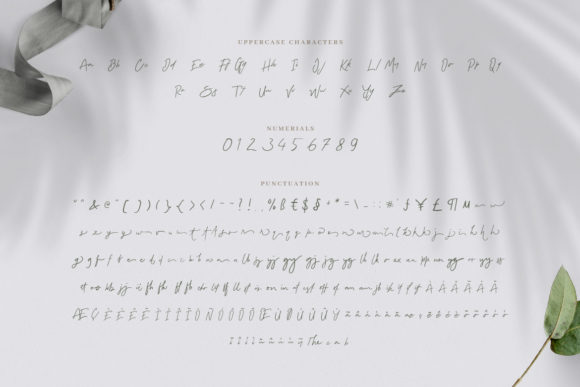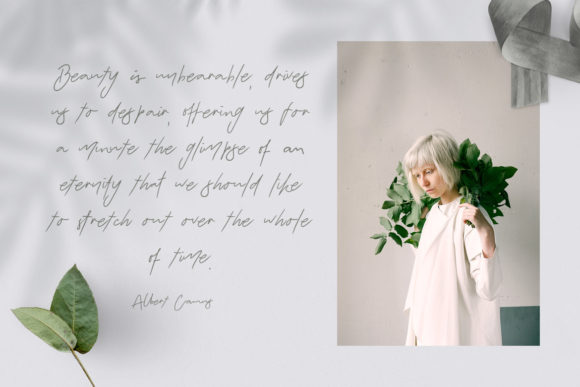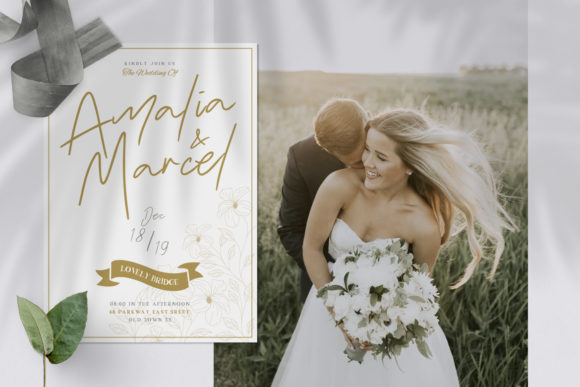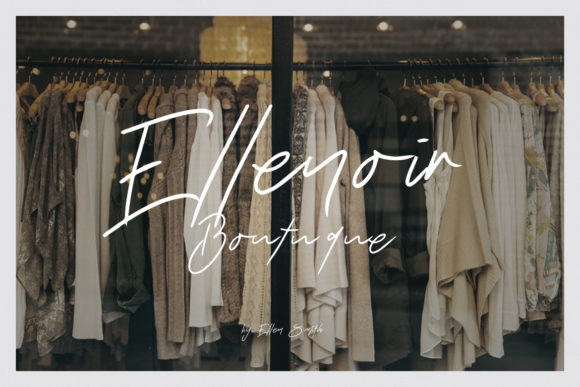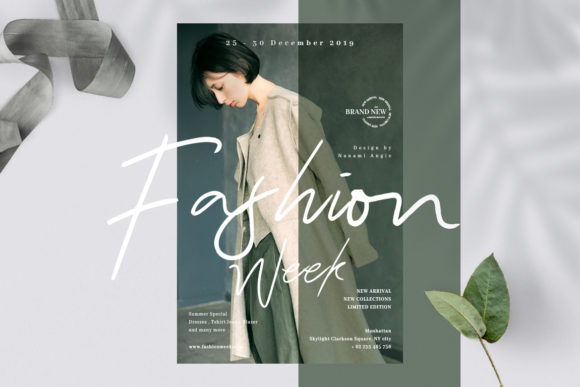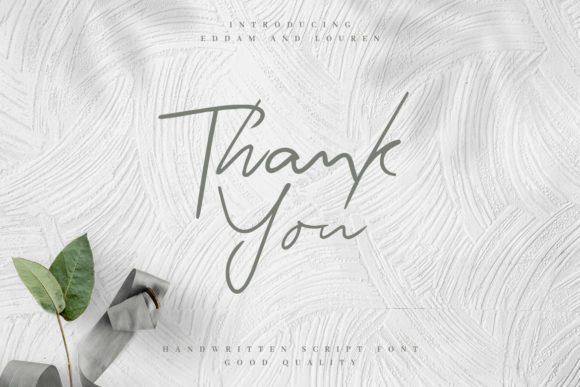
Eddam and Louren Font: Elevate Your DIY Projects with Elegance
Are you a designer, crafter, or DIY enthusiast looking for a font that can add a touch of sophistication to your projects? Look no further than Eddam and Louren, a delightfully charming script font with an elegant feel. In this article, we’ll dive into the world of Eddam and Louren, exploring its features, benefits, and uses, and show you how this must-have font can take your creative endeavors to the next level.
The Story Behind Eddam and Louren
Eddam and Louren is a script font designed to evoke a sense of luxury, elegance, and refinement. Its creators aimed to craft a font that would be perfect for a variety of applications, from crafting and DIY projects to branding, packaging, and digital design. With its beautiful, flowing lines and delicate strokes, Eddam and Louren is sure to captivate anyone who lays eyes on it.
What Makes Eddam and Louren So Special?
So, what sets Eddam and Louren apart from other fonts? Here are just a few features that make it a standout:
- Elegant feel: Eddam and Louren has a sophisticated, high-end feel that’s perfect for projects that require a touch of luxury.
- Charming script: The font’s script style is delightfully charming, with flowing lines and delicate strokes that add a touch of whimsy to any project.
- Versatile: Eddam and Louren is versatile enough to be used in a wide range of applications, from crafting and DIY projects to digital design and branding.
- Easy to read: Despite its elegant feel, Eddam and Louren is surprisingly easy to read, making it perfect for body text and other applications where legibility is key.
Uses for Eddam and Louren
Eddam and Louren is a versatile font that can be used in a wide range of applications, including:
- Crafting and DIY projects: Add a touch of elegance to your crafting and DIY projects, such as papercrafting, scrapbooking, and card making.
- Digital design: Use Eddam and Louren in digital design projects, such as branding, packaging, and social media graphics.
- Stationery and invitations: Create beautiful stationery, invitations, and greeting cards with Eddam and Louren.
- Sign making: Use Eddam and Louren to create stunning signs, banners, and displays.
Tips for Using Eddam and Louren
Here are a few tips for getting the most out of Eddam and Louren:
- Pair it with a sans-serif font: Pair Eddam and Louren with a sans-serif font for a beautiful, contrasting look.
- Experiment with colors: Eddam and Louren looks stunning in a variety of colors, from metallics to pastels.
- Use it sparingly: Use Eddam and Louren sparingly to add a touch of elegance to your projects, rather than overwhelming them with too much script.
Eddam and Louren is a must-have font for designers, crafters, and DIY enthusiasts looking to add a touch of elegance to their projects. With its charming script, elegant feel, and versatility, it’s the perfect font for anyone looking to take their creative endeavors to the next level. So why wait? Fall in love with Eddam and Louren today and see the difference it can make in your projects!